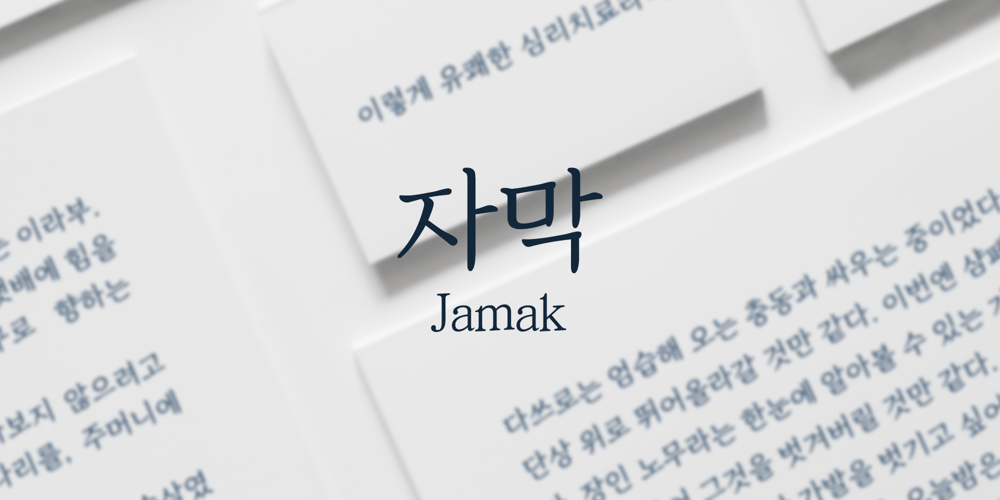
210 Jamak Font Family was designed by Doo-Yul Kwak, Yul Kwak Doo and published by Design210, Korean Fonts. 210 Jamak contains 3 styles and family package options. It is a font designed in a balanced manner by optimizing the width and spacing of letters to make use of readability.Serif was treated as a curve to emphasize a soft and comfortable feeling.The serifs of the letters gave a distinct impression and gave it a natural look by adding inclination.